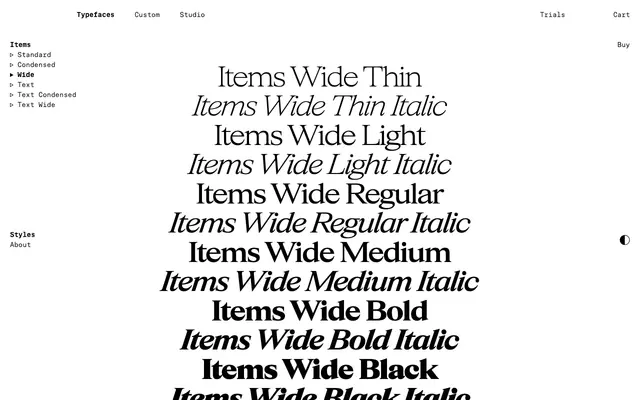
Items Wide
Items Wide specimen from Schick Toikka
The wide cut of the Items display branch: a spacious transitional serif for headlines, exploring Times-lineage forms freed from space constraints.
Items Wide widens the proportions of the Items display branch. Six weights from Thin to Black with matching italics keep the family's tight letter fit and tapered joints intact while opening up the horizontal stance, which the foundry describe as exploring what a transitional serif looks like when freed from space constraints. Items Wide pairs naturally with Items Standard and Items Condensed in the display branch and with the Items Text branch for body sizes, supported by Latin Extended language coverage.
The Wide width of the Items display branch; the foundry describe it as opening a whole new dimension, exploring what a transitional serif looks like if freed from space constraints.